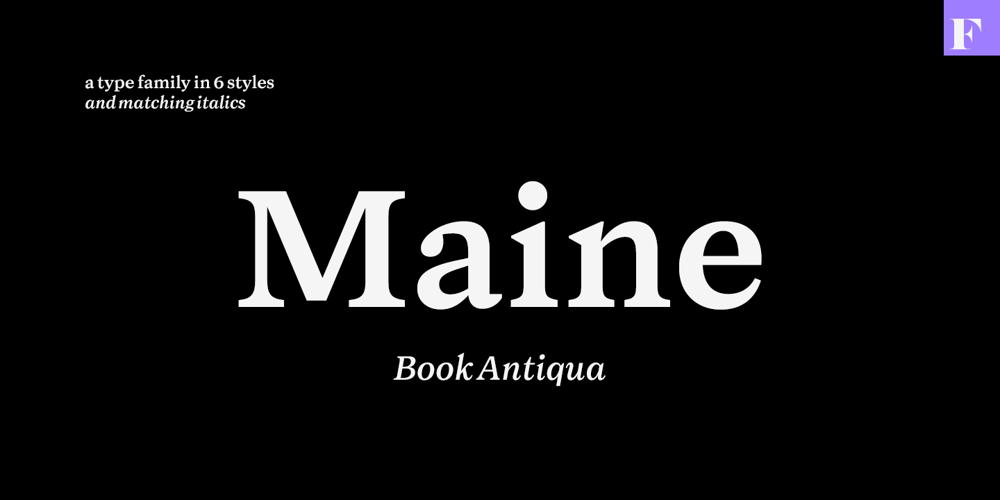
Maine
Maine font
Maine Font Family was designed by Emil Karl Bertell, Erik Jarl Bertell, Teo Tuominen and published by Fenotype. Maine contains 12 styles and family package options. Maine is a modernized book antiqua consisting of six styles and matching italics. Maine’s cuts are from Light to Extrabold, of which Regular and Slightly Bolder Book are especially suitable for longer texts. Thanks to its clear features and high x-height, Maine creates a beautiful and legible body text. Maine gives a professional, no-nonsense impression and it’s best used in editorial, books, magazines and everywhere where you can use many different styles and sizes of the same typeface. Go dignified with Maine.